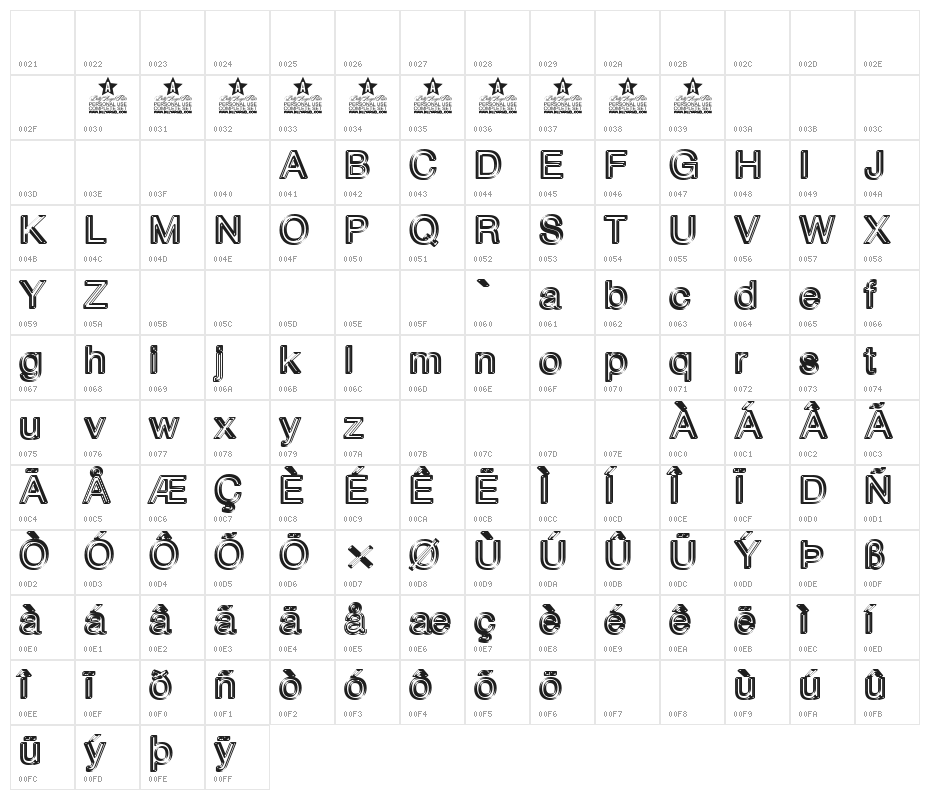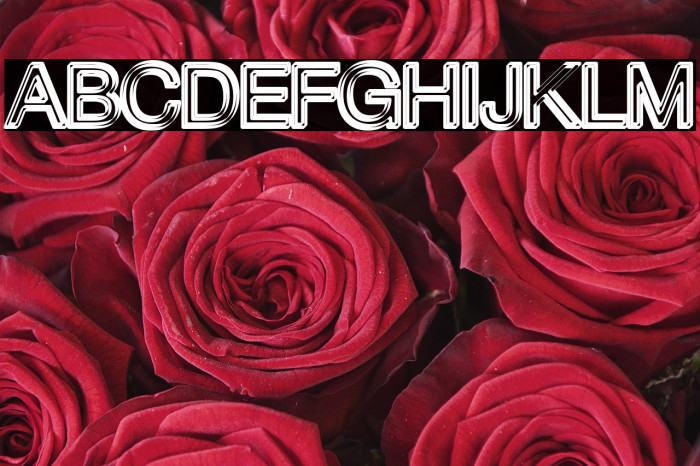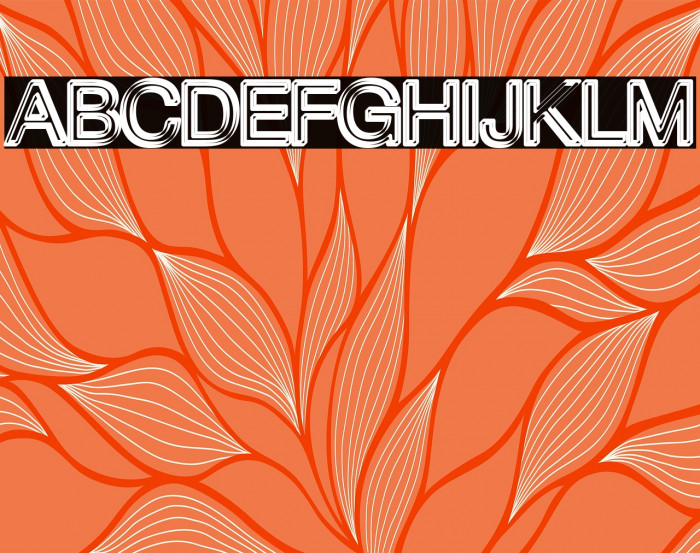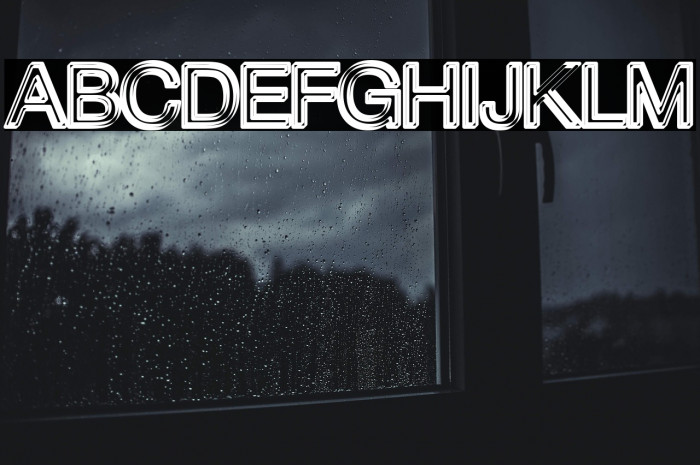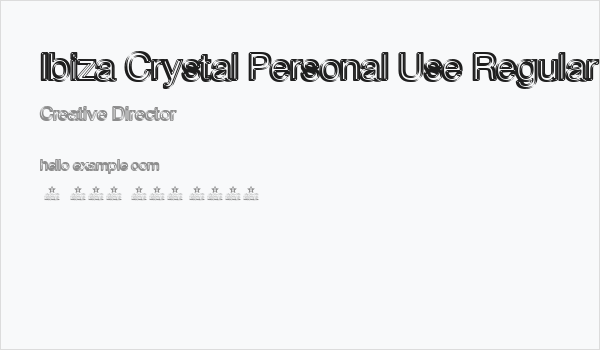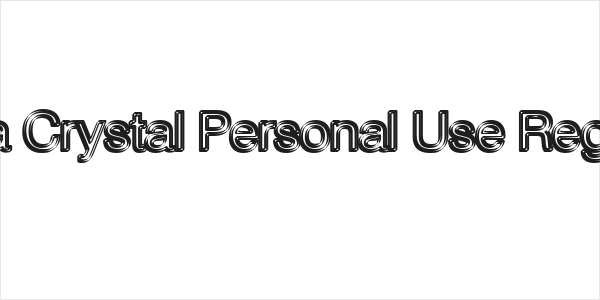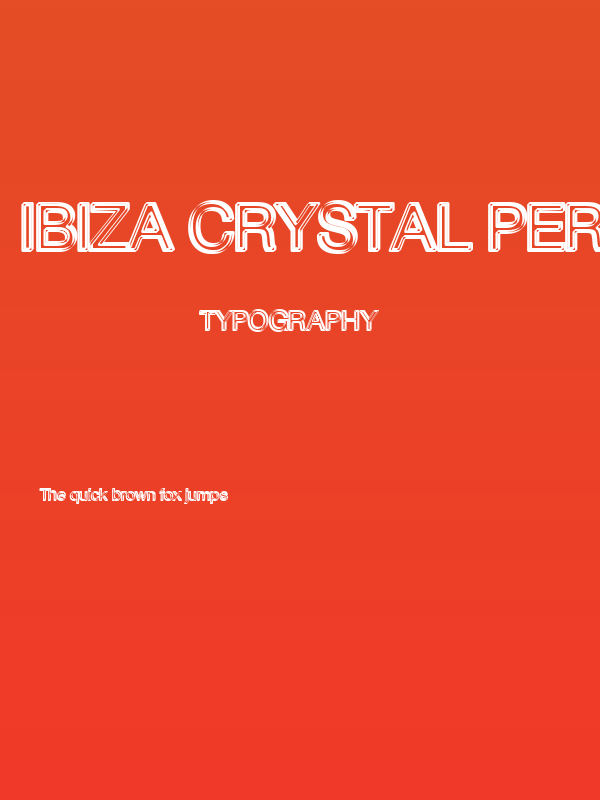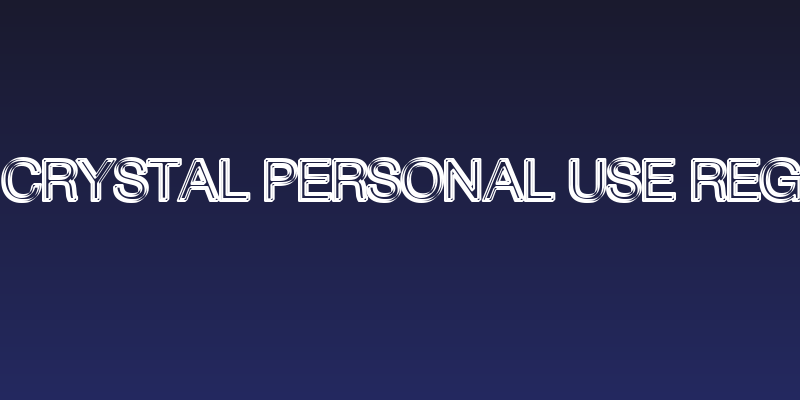
Ibiza Crystal Personal Use Regular Font
Ibiza Crystal Personal Use Regular Description
This font features a bold, decorative style with a distinct three-dimensional effect. The characters are outlined with a thick, black border, creating a striking contrast against the inner white space. This design gives the font a layered appearance, making it stand out in any composition. The uppercase and lowercase letters maintain a consistent style, with rounded edges and a modern flair. The numerals and special characters are designed to match the overall aesthetic, ensuring uniformity across all text elements. This font is ideal for projects that require a bold and eye-catching typeface.
| Proposed Projects | Ideal for posters, logos, headlines, and any design requiring a bold statement. |